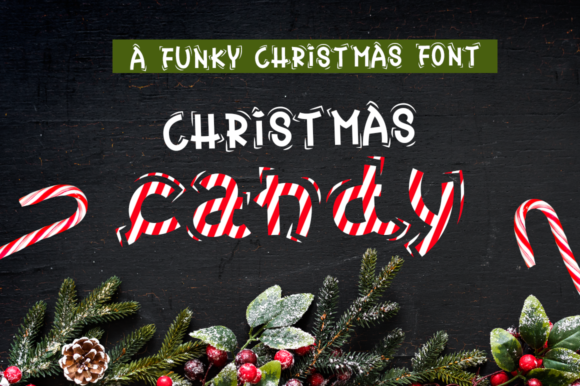
Introducing Christmas Candy Font: A Sweet Addition to Your Holiday Designs
Are you looking for a festive and fun font to add some holiday cheer to your designs? Look no further than Christmas Candy Font, a beautiful decorative and funky font inspired by the classic candy cane. This delightful font is perfect for creating eye-catching cards, Christmas invitations, t-shirt designs, logos, quotes, and more.
What is Christmas Candy Font?
Christmas Candy Font is a carefully crafted decorative font that captures the whimsical spirit of the holiday season. Its unique design is reminiscent of candy canes, making it an ideal choice for any Christmas-themed project. The font comes with a range of characters, including uppercase and lowercase letters, basic characters, standard numbers, and punctuation, providing you with everything you need to create stunning holiday designs.
Key Features of Christmas Candy Font
- Uppercase and Lowercase Letters: Christmas Candy Font includes both uppercase and lowercase letters, allowing you to create a variety of designs, from bold and playful to elegant and sophisticated.
- Basic Characters and Punctuation: The font also includes basic characters and punctuation, making it easy to create complete and cohesive designs.
- Standard Numbers: With standard numbers included, you can easily add dates, prices, and other numerical elements to your designs.
- Multipurpose: Christmas Candy Font is perfect for a wide range of design projects, including cards, invitations, t-shirt designs, logos, quotes, mugs, and more.
Whether you’re a professional designer or a crafter looking for a fun and creative way to add some holiday cheer to your projects, Christmas Candy Font is the perfect choice. Its unique and festive design makes it ideal for:
- Holiday Cards: Create eye-catching and personalized holiday cards for friends and family.
- Christmas Invitations: Design festive and fun invitations for holiday parties and events.
- T-Shirt Designs: Add some holiday cheer to your t-shirt designs with this fun and playful font.
- Logos and Branding: Use Christmas Candy Font to create a unique and memorable logo or branding element for your holiday-themed business or product.
- Quotes and Mugs: Design inspiring and festive quotes, or add a touch of holiday cheer to your mug designs.
Tips for Using Christmas Candy Font
To get the most out of Christmas Candy Font, here are a few tips:
- Experiment with Colors: The holiday season is all about bright and bold colors, so don’t be afraid to experiment with different color schemes to find the perfect combination for your design.
- Mix and Match Fonts: Combine Christmas Candy Font with other fonts to create a unique and visually appealing design.
- Play with Sizes: Use different font sizes to add emphasis and create visual interest in your design.
Christmas Candy Font is a sweet and festive addition to any designer’s toolkit. Its unique and playful design makes it perfect for a wide range of holiday-themed projects, from cards and invitations to t-shirt designs and logos. With its range of characters, multipurpose design, and ease of use, Christmas Candy Font is sure to become a favorite among designers and crafters alike. So why wait? Download Christmas Candy Font today and add some holiday cheer to your designs!